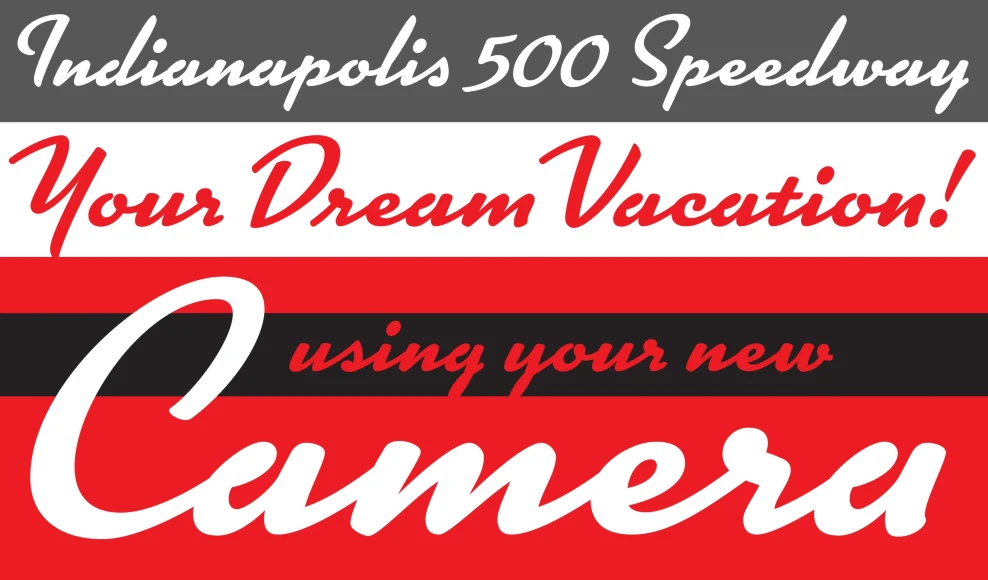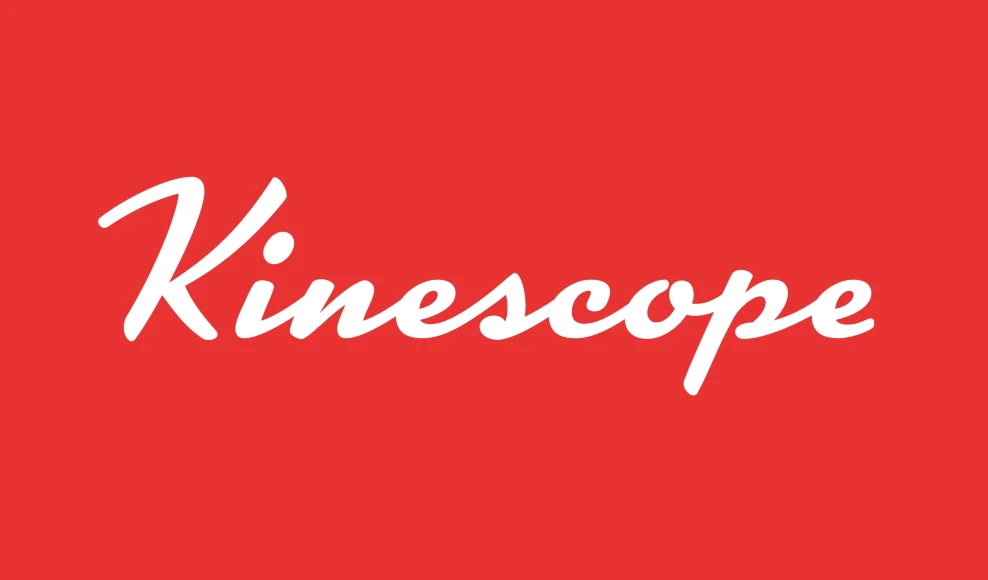
Kinescope
By Mark Simonson
Kinescope Regular
Kinescope (2007) is a dashing 1940s-style brush script, inspired by hand-lettered titles in Fleischer Brothers’ Superman cartoon series. Although I used that as a starting point, there was much room for interpretation, and many characters had to be invented. Kinescope uses some OpenType magic to mimic hand lettering, automatically choosing the best character shape based on its position in a word. Kinescope was designed along side of and released with another Fleischer Brothers-inspired design, Snicker.